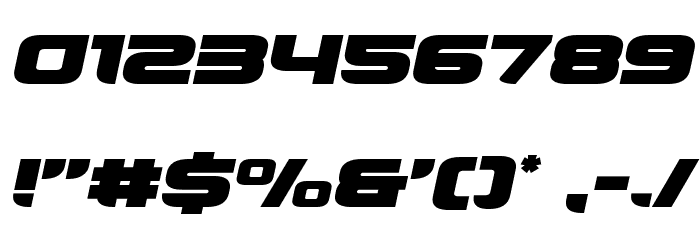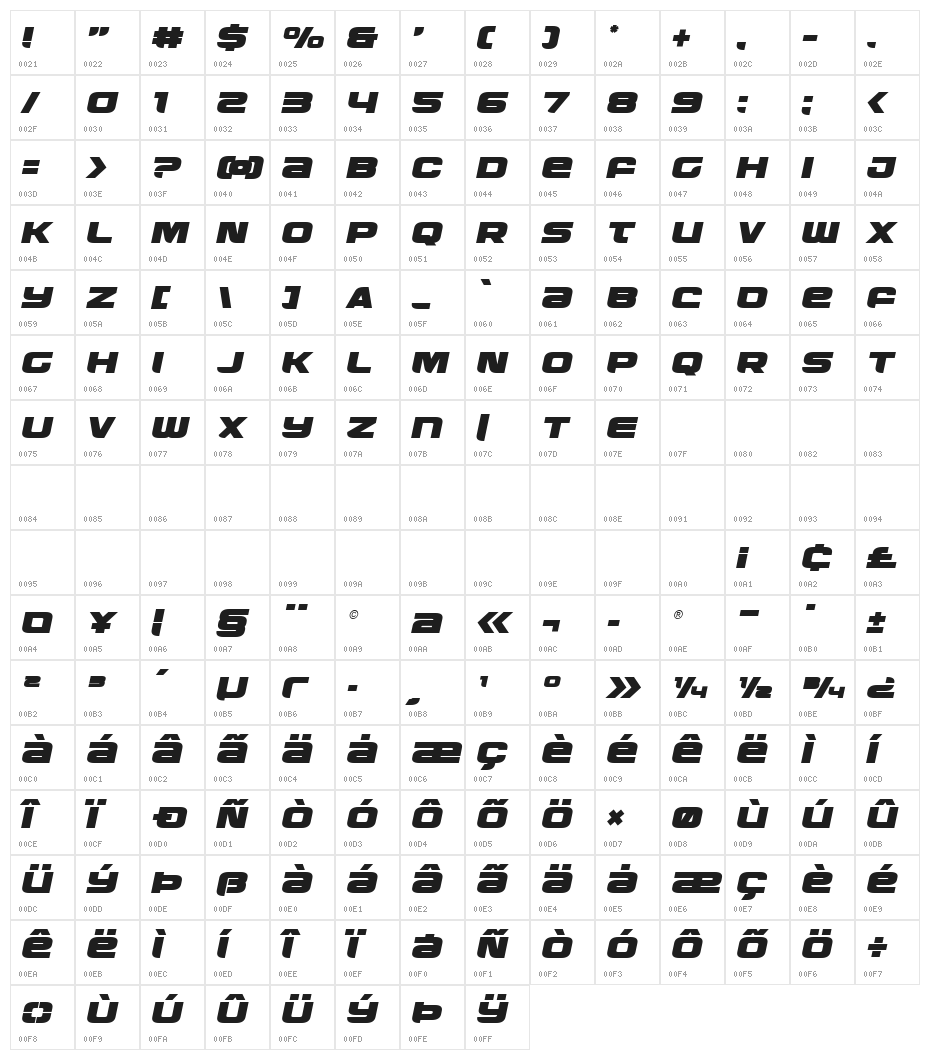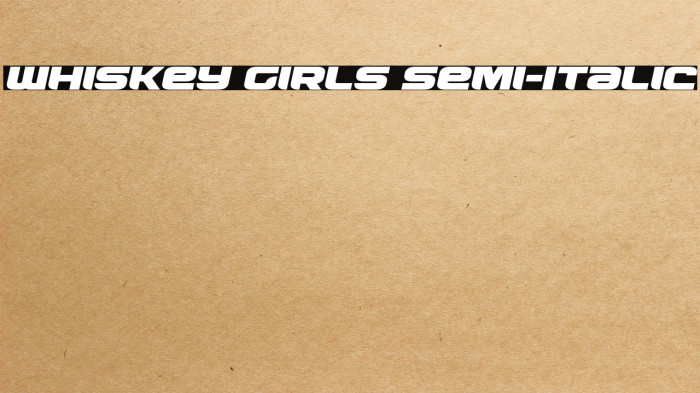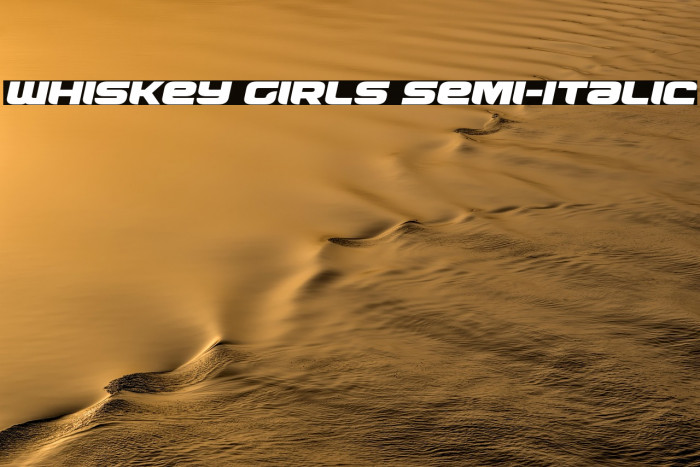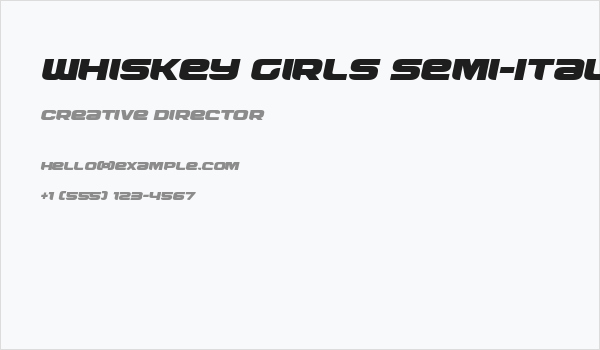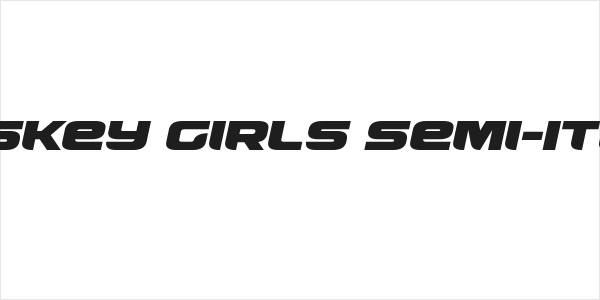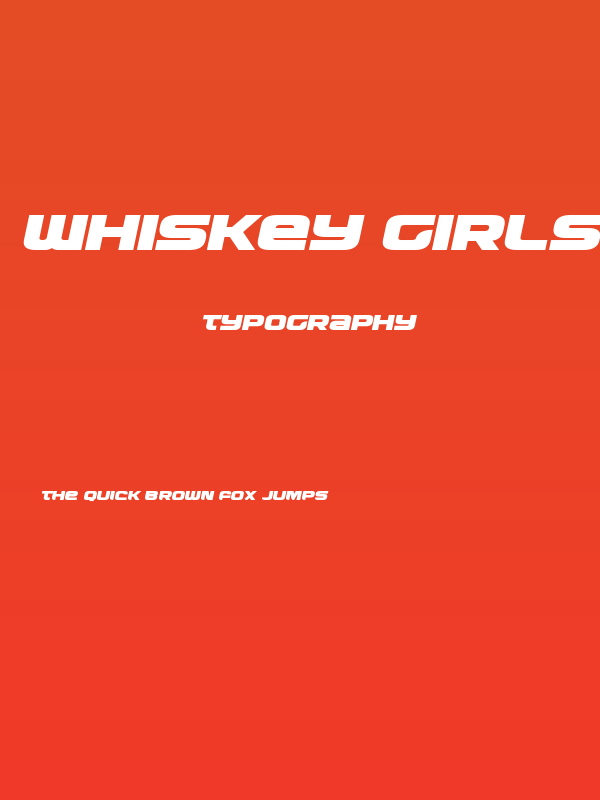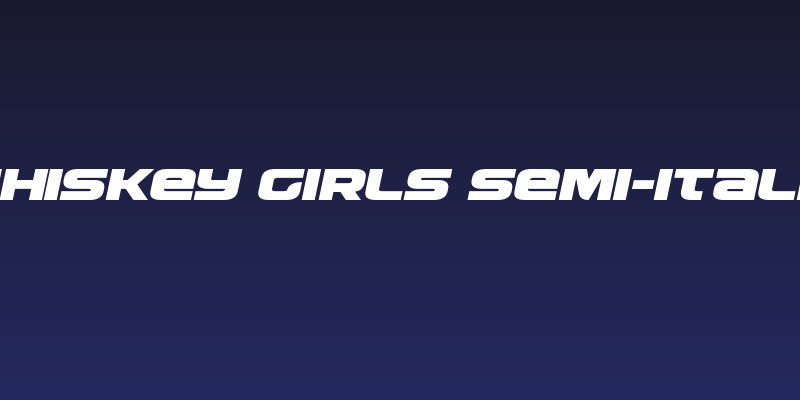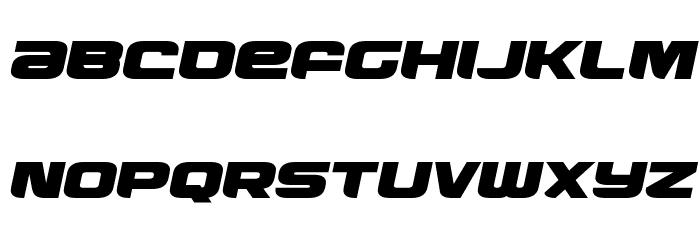
Whiskey Girls Semi-Italic Font
Whiskey Girls Semi-Italic Description
This font features a bold and dynamic design with a semi-italic slant, giving it a sense of movement and energy. The characters are wide and robust, with a modern and slightly futuristic appearance. The uppercase and lowercase letters maintain a consistent style, with rounded edges and a smooth flow. The numbers and special characters complement the alphabet with the same boldness and slant, ensuring a cohesive look across all text. This font is ideal for projects that require a strong visual impact and a contemporary feel.